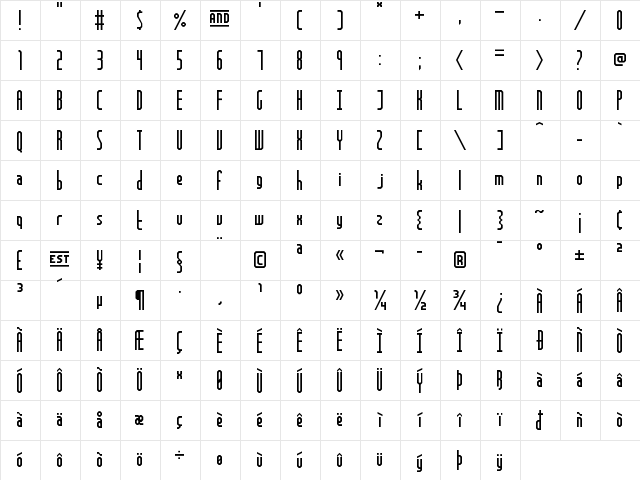
Frankfurt Messe Regular
Design Context for Frankfurt Messe Typeface
Frankfurt Messe offers clean, dependable letterforms without strong stylistic allegiance, making it a practical choice for designers who need flexibility.